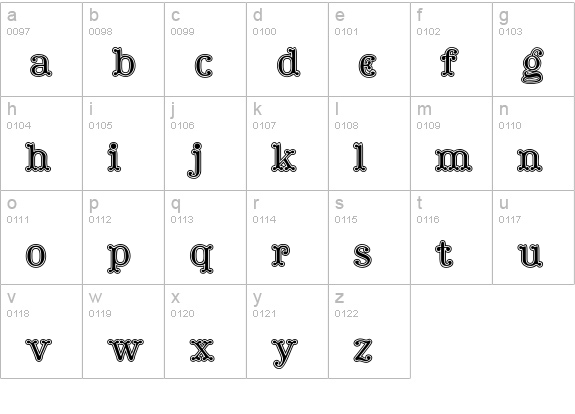
Hallodolly Font Details
Hallodolly font is a stunning and versatile typeface that will take your designs to new heights. With its elegant and stylish appearance, Hallodolly is perfect for a wide range of projects, from branding and packaging to headlines and invitations. This font features clean lines and a modern, yet timeless, aesthetic that will instantly elevate any design. Its sleek and legible letterforms make it easy to read, ensuring that your message comes across loud and clear. But what sets Hallodolly font apart is that it is not only beautiful, but also free. That's right, you can download this incredible font for absolutely no cost at FontsMarket.com. It's like getting a gift from the design gods themselves! Whether you're a professional designer looking to add a touch of sophistication to your work or a hobbyist looking to experiment with different typefaces, Hallodolly font is the perfect choice. Its versatility and timeless appeal make it suitable for any project, and the fact that it's free only adds to its appeal. So don't wait any longer, head over to FontsMarket.com and download Hallodolly font today. Your designs will thank you for it!